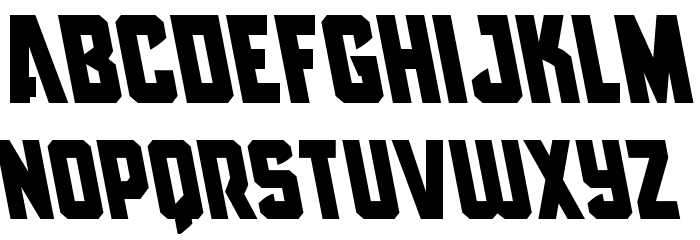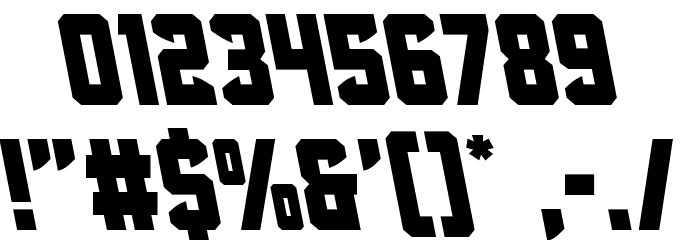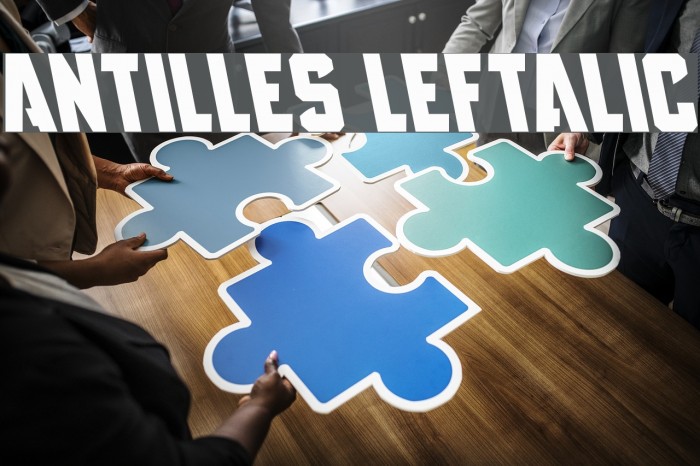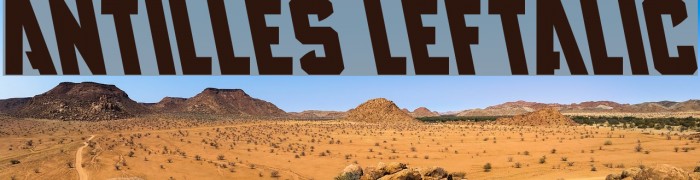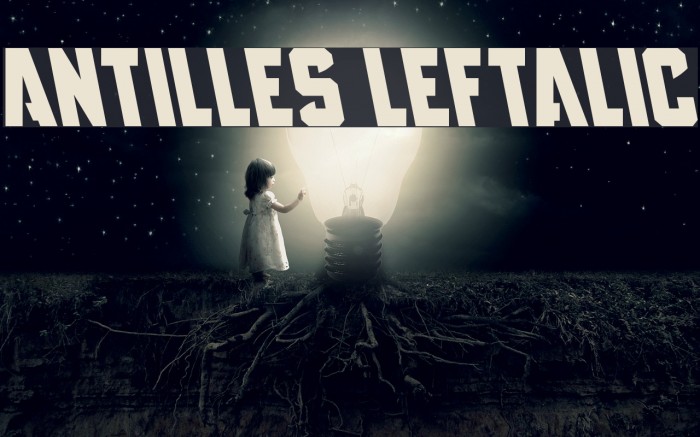
Antilles Leftalic Font
This font features a bold and angular design with a distinct geometric style. The characters are sharply defined with a strong presence, making it ideal for attention-grabbing headlines and impactful designs. The uppercase and lowercase letters maintain a consistent width, contributing to a uniform appearance. The numbers and special characters are equally bold, ensuring they stand out in any context. The overall aesthetic is modern and slightly aggressive, suitable for projects that require a strong visual statement.
A bold, angular font with a geometric and modern style.
- Proposed Projects: Ideal for posters, logos, branding, and any design requiring a bold statement.